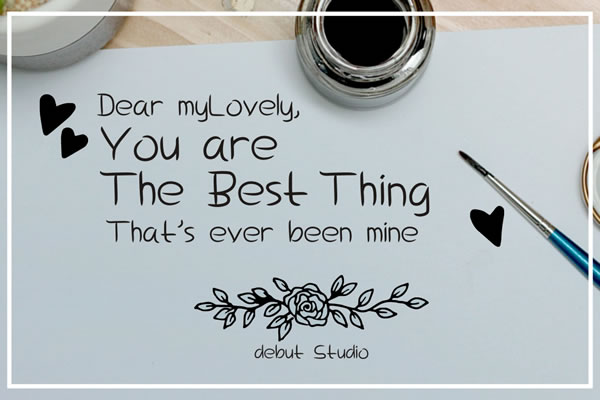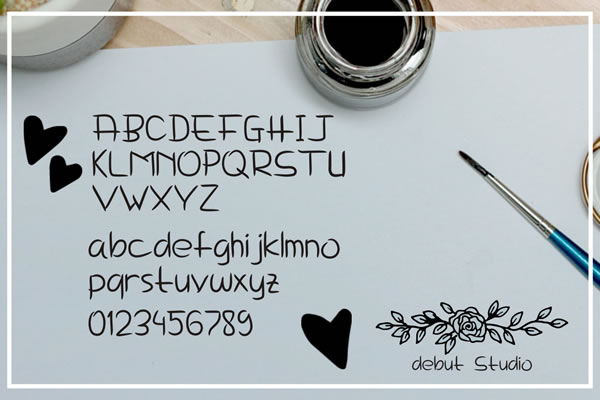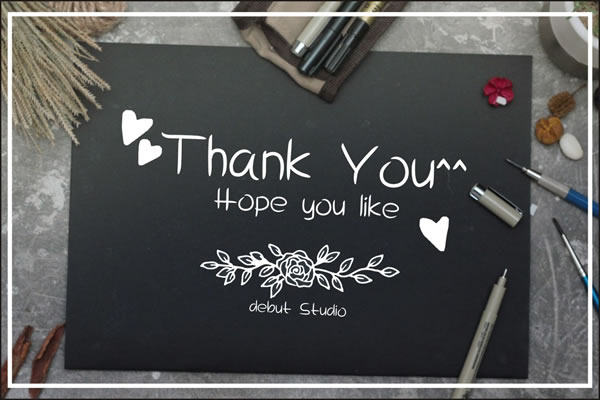
HomeScript FontsDelima Font Script Fonts Delima Font FacebookXPinterestWhatsApp Delima Font Poster 2 Delima Font Poster 3 Delima Font Poster 4 About Delima Font Delima Notes is a sweet thin handwritten font created by Debut Studio. DOWNLOAD NOW People also explored Green Fuz Montagna Font Swamp Thing Font Lots of Love Font Endearment Font Christopher Lynn Font Southoya Font Bethalia Font Vinylbuzz Font 239 0 TagsDelima Font Previous articleGeorgia FontNext articleChelsea Font LEAVE A REPLY Cancel reply Comment: Please enter your comment! Name:* Please enter your name here Email:* You have entered an incorrect email address! Please enter your email address here Website: Save my name, email, and website in this browser for the next time I comment. Personal Use Free Hello Holiday Personal Use Free Read more about this font Christmas Diary Personal Use Free Read more about this font Time for Presents Personal Use Free Read more about this font Husky Stash Personal Use Free Read more about this font BLOG Transform Your Website: Elevate Your Typography with 7 Best Web Font Generators Are you ready to transform your website's typography from ordinary to extraordinary? Great! Today, we're diving into the world of web font generators, which... Top 7 Google Fonts Alternatives for Faster and Privacy-Friendly Web Design (2025) Best Fonts for T-Shirt Design – Top 2025 Picks Using Fonts in Digital Marketing: Tips to Strengthen Your Brand Identity